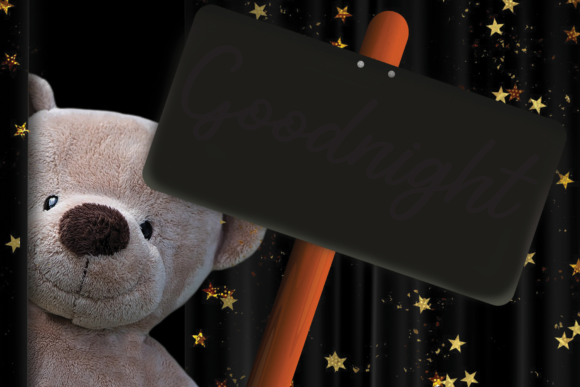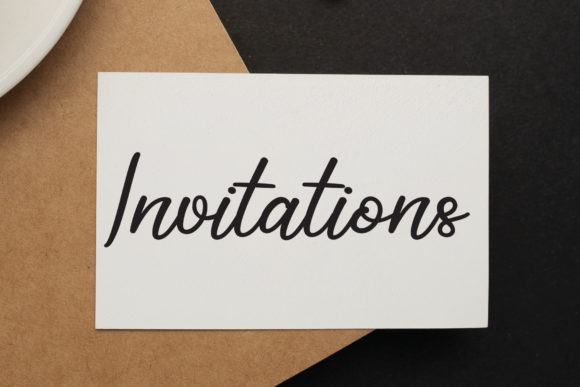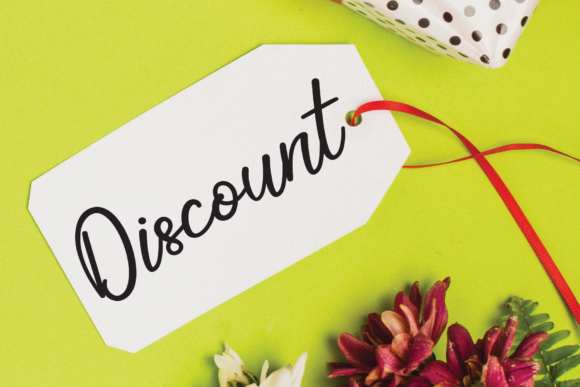
Signature Written Font
About Signature Written Font
Signature Written is a gracefully simple and well-balanced script font designed to captivate with its ravishing style. This font is a perfect choice for creating gorgeous wedding invitations, beautiful stationary art, engaging social media posts, and a myriad of other projects where an elegant touch is desired.
The simplicity and balance of Signature Written make it a versatile and reliable font for various design applications. Whether you’re crafting wedding invitations that require a touch of sophistication or creating beautiful stationery art that speaks to timeless elegance, this font effortlessly adapts to your creative vision, enhancing the overall aesthetic of your projects.
Signature Written’s ravishing style adds a layer of charm and refinement to your text, making it an excellent choice for projects that demand a signature or handwritten feel. The font’s fluid strokes and well-crafted characters create a visual harmony that resonates with those seeking an understated yet impactful design.
Fall in love with Signature Written as it becomes a key element in your creative toolkit. Its adaptability allows it to shine in various contexts, from formal wedding invitations to more casual social media posts. Use it confidently to bring a touch of sophistication and style to your designs, ensuring that each project stands out with a timeless allure.
In conclusion, Signature Written is more than just a font; it’s an invitation to infuse your projects with ravishing style. Whether you’re working on wedding invitations, stationary art, social media posts, or any other creative endeavor, let Signature Written be the signature touch that elevates your designs to new heights of beauty and elegance.